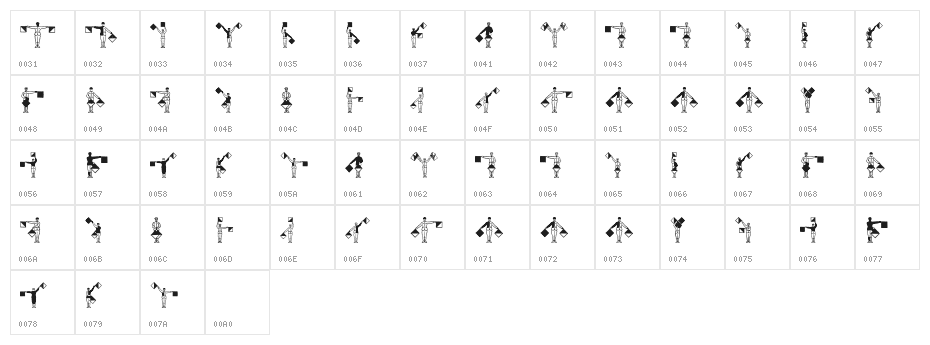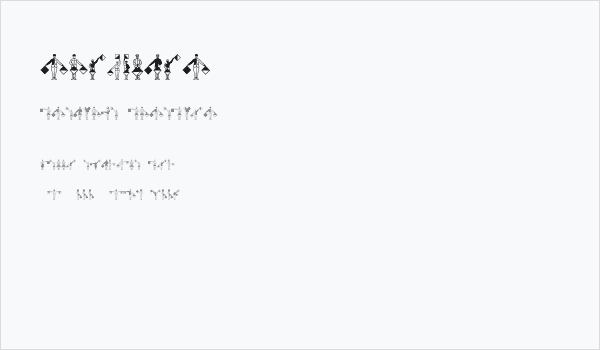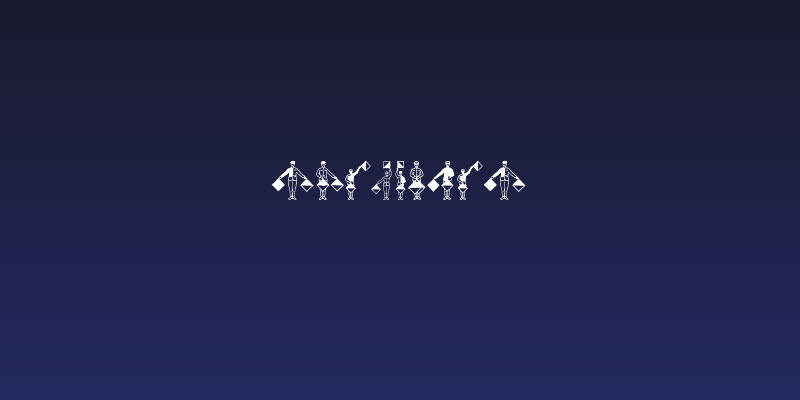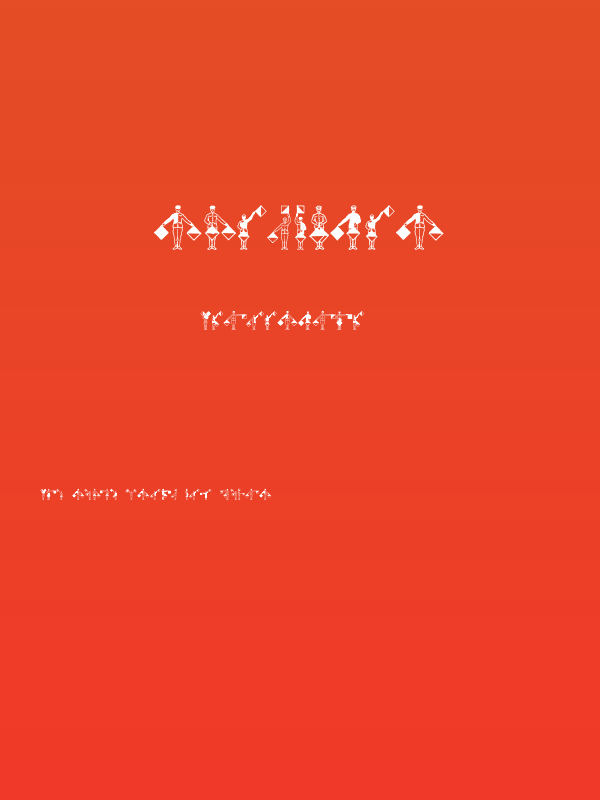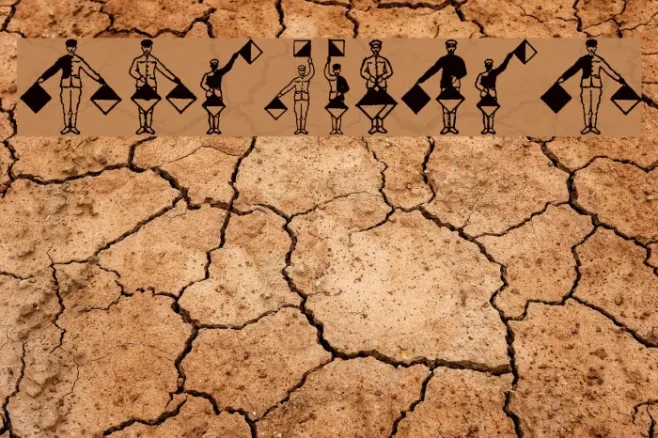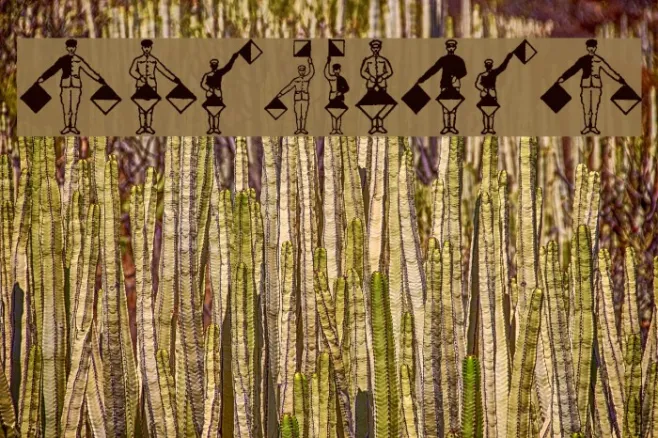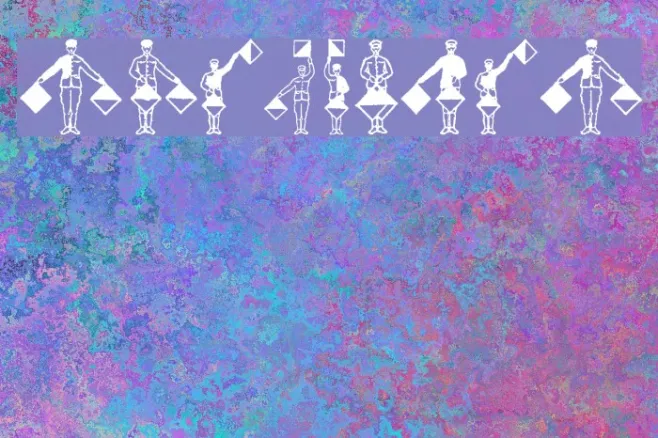
SignFlags Font
SignFlags Description
This unique and creative font is designed using semaphore flag signals, where each character is represented by a figure holding flags in different positions. The figures are detailed, with clear outlines and distinct flag positions that correspond to each letter, number, and special character. This font is highly decorative and visually engaging, making it a standout choice for projects that require a nautical or communication theme. The characters are evenly spaced, ensuring readability despite the intricate design. The overall style is playful and thematic, capturing the essence of maritime signaling.
| Use Case | Logos, Posters, Themed Events |
| Proposed Projects | Ideal for maritime-themed posters, educational materials on communication, or creative design projects that require a unique visual element. |